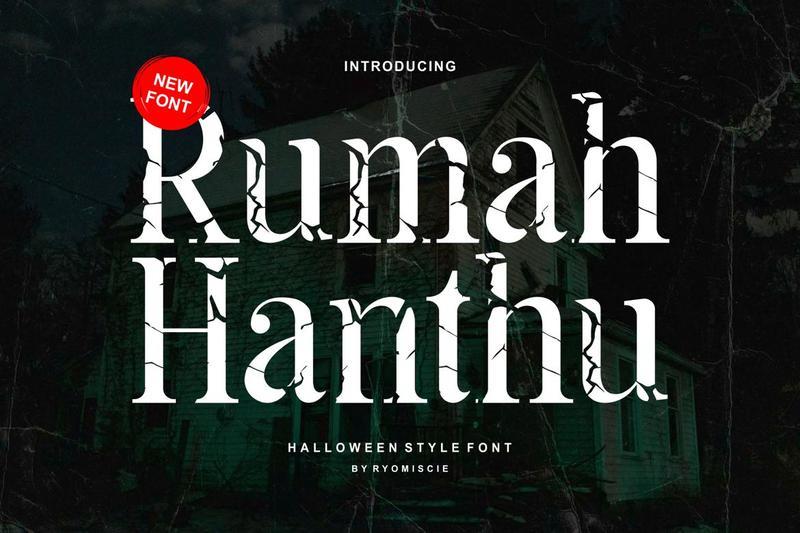
Rumah Hanthu – Halloween Style Font 6P2ZVUA
Introducing our new product **Rumah Hanthu** – Halloween Style Font
**Rumah Hanthu** – Halloween Style Font is a regular and authentic display font. The font is suitable for any branding project like logo, esport, and many more. outstanding in a wide range of contexts.